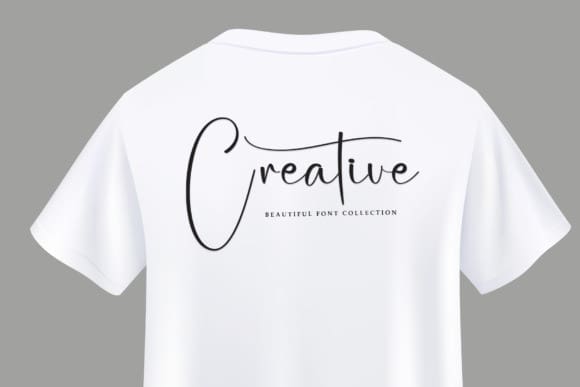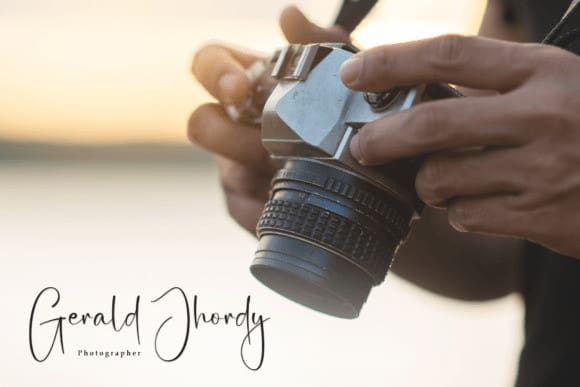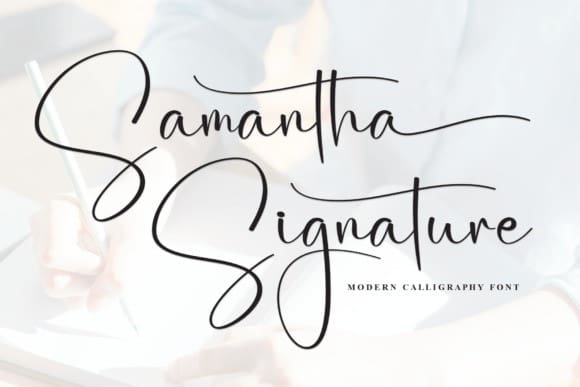
Samantha Signature Typeface
Samantha Signature Typeface is an elegant handwriting font that exudes sophistication and personal flair. With graceful strokes and a touch of femininity, this font captures the essence of a handwritten signature, adding a refined touch to your projects. Perfect for invitations, greeting cards, and personal branding, Samantha Signature brings a timeless charm to your written expressions.